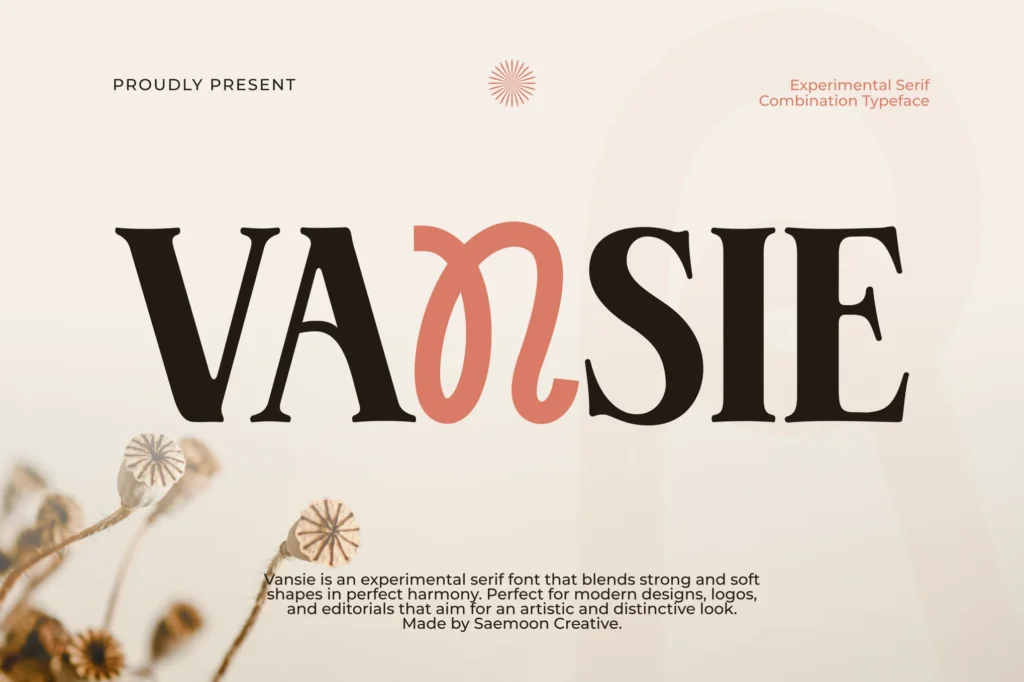
Vansie
Vansie – Experimental Serif Combination Typeface
Vansie is an experimental serif typeface that blends strong and soft shapes in perfect harmony. It combines elegant curves with bold letterforms to create a unique and artistic appearance. Perfect for logos, magazine layouts, branding projects, posters, and modern editorial designs that need a creative yet professional touch.
Alternates & Ligatures